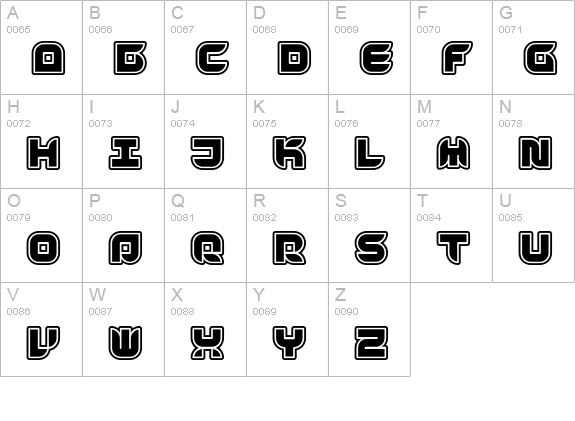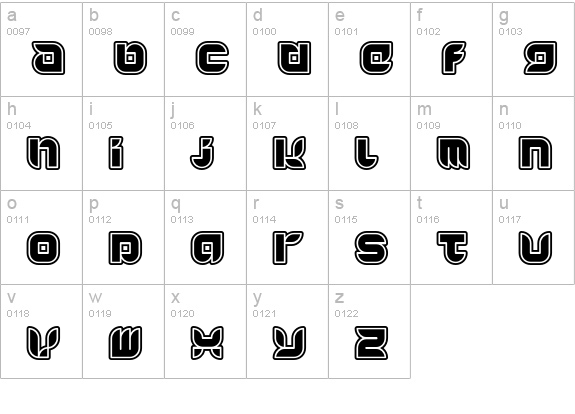
Yr72-Inline Font Details
Yr72-Inline font is a modern and sleek typeface that exudes sophistication and elegance. Its clean lines and geometric shapes make it perfect for a wide range of design projects, from branding to editorial design. The inline style adds a unique touch to any text, making it stand out and draw attention. What sets Yr72-Inline font apart is that it is not only stylish and versatile, but also free to download. Yes, you read that right - this high-quality font is freely available for download at FontsMarket.com. Whether you're a designer looking to add a fresh new font to your collection or a business owner seeking a unique typeface for your branding, Yr72-Inline font is the perfect choice. Don't miss out on the opportunity to enhance your designs with this beautiful and free font. Download Yr72-Inline today and start creating stunning visuals that will leave a lasting impression.